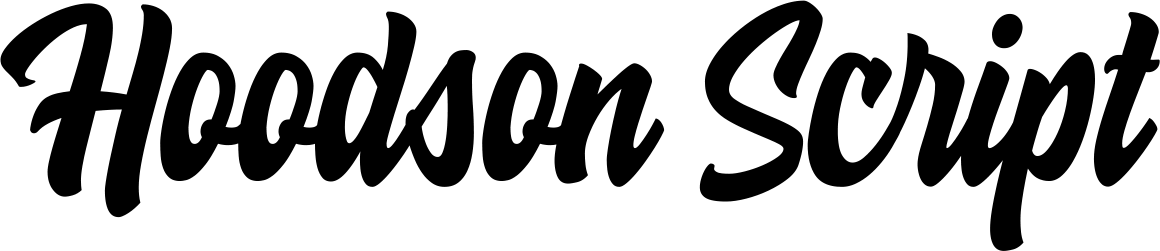
Hoodson Script Font
If you crave an old-school font for your text design, Hoodson Script is a great pickup for you. This case comes in 2 versions and can be utilized for posters, logos, apparel, and so on. With its flowing and semi-bold let…
If you crave an old-school font for your text design, Hoodson Script is a great pickup for you. This case comes in 2 versions and can be utilized for posters, logos, apparel, and so on. With its flowing and semi-bold letters, you can make a flawless outcome. Note that this one doesn’t contain numbers. To get more of this category, don’t miss our ever-growing inventory.